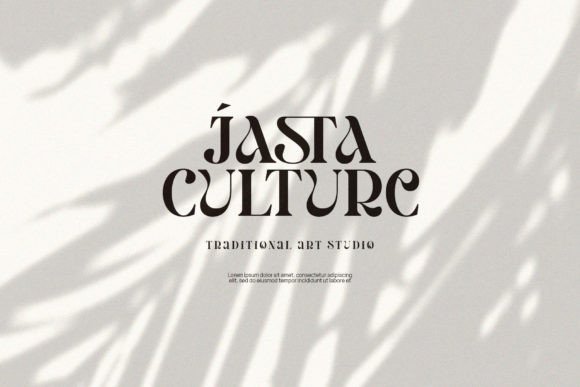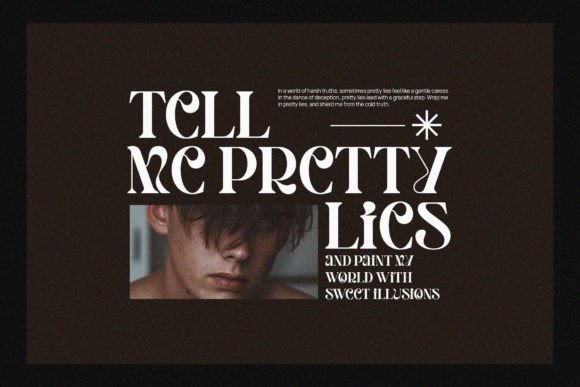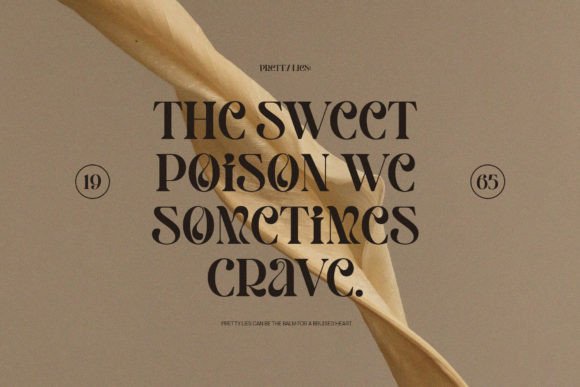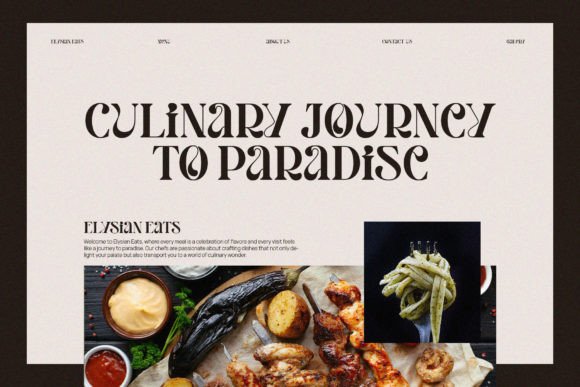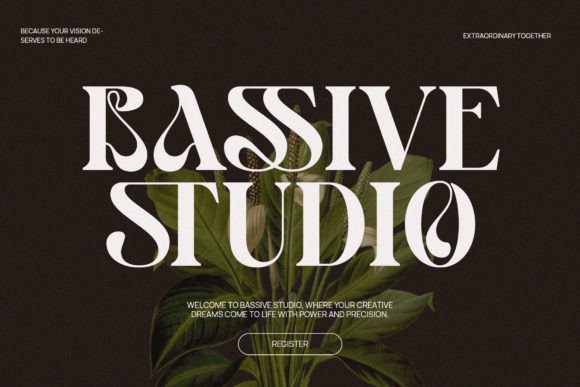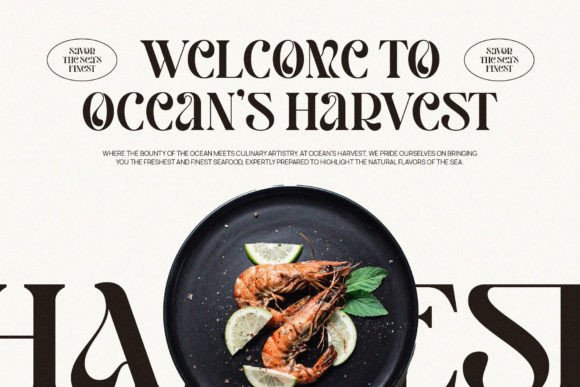
Introducing Giamlass Font: Elevate Your Designs with Elegance and Sophistication
In the world of typography, fonts play a crucial role in conveying the tone and personality of a brand or design. For designers and crafters seeking to add a touch of elegance and sophistication to their projects, Giamlass Font is an exceptional choice. This modern display serif font is designed to make a statement, perfect for headings, logos, branding, magazines, product packaging, and invitations.
The Characteristics of Giamlass Font
Giamlass Font boasts clean lines and smooth curves, providing a classy and refined aesthetic to any project. Its elegant design makes it an ideal choice for those seeking to create a lasting impression. The font comes equipped with ligatures and multiple alternates, offering flexibility and versatility in design. Whether you’re working on a luxury brand’s logo or a wedding invitation, Giamlass Font is sure to elevate your design.
Key Features of Giamlass Font
- Elegant and Classy Design: Giamlass Font features a modern display serif design that exudes elegance and sophistication.
- Ligatures and Alternates: The font includes ligatures and multiple alternates, allowing designers to experiment with different styles and create unique pieces.
- Clean Lines and Smooth Curves: The font’s clean lines and smooth curves ensure a refined and polished look.
- Versatility: Giamlass Font is suitable for a wide range of applications, from headings and logos to branding, magazines, product packaging, and invitations.
Why Choose Giamlass Font?
For designers and crafters, selecting the right font can be a daunting task. Here are a few reasons why Giamlass Font stands out:
- Unique and Memorable: Giamlass Font’s distinctive design ensures that your project will stand out and be remembered.
- High-Quality Design: The font’s clean lines, smooth curves, and elegant aesthetic make it perfect for high-end designs.
- Easy to Read: Despite its elegant design, Giamlass Font remains easy to read, making it suitable for body text as well as headings.
- Customizable: With ligatures and alternates, designers have the flexibility to customize the font to suit their project’s needs.
Using Giamlass Font in Your Designs
- Experiment with Styles: Take advantage of the font’s ligatures and alternates to experiment with different styles.
Giamlass Font is a versatile and elegant display serif font perfect for designers and crafters seeking to add a touch of sophistication to their projects. With its clean lines, smooth curves, ligatures, and alternates, Giamlass Font offers the flexibility and style needed to create memorable and impactful designs. Whether you’re working on a luxury brand’s logo or a wedding invitation, Giamlass Font is an exceptional choice.